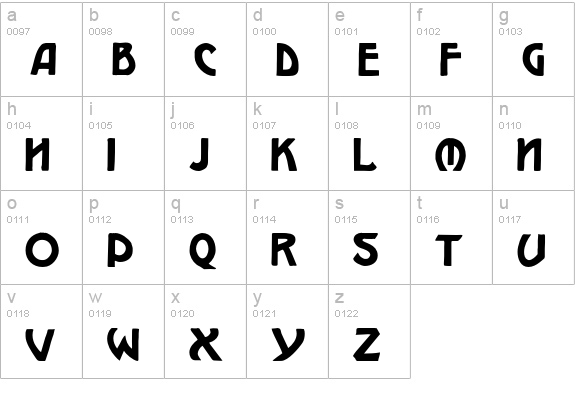
WJPearce213 Font Details
Introducing WJPearce213 font, a captivating and versatile typeface that will undoubtedly elevate your creative projects to new heights. With its sleek and modern design, this font exudes a sense of sophistication and professionalism, making it the perfect choice for a wide range of applications. WJPearce213 font offers a harmonious balance between elegance and legibility, making it suitable for both headlines and body text. Its clean lines and meticulously crafted letterforms ensure optimal readability, even at smaller sizes. One of the most remarkable features of WJPearce213 font is that it is available for free download at FontsMarket.com. This means that you can easily access and utilize this extraordinary font without any cost, making it an invaluable resource for designers, typographers, and anyone seeking to add a touch of refinement to their projects. Whether you're designing a logo, creating eye-catching posters, or crafting a visually stunning website, WJPearce213 font will effortlessly enhance your designs and captivate your audience. Its versatility allows it to adapt to various design styles, ensuring that it seamlessly integrates into any project. With its freely available download at FontsMarket.com, WJPearce213 font is a must-have addition to any font library. So why wait? Unlock your creative potential and elevate your designs with this extraordinary font today.